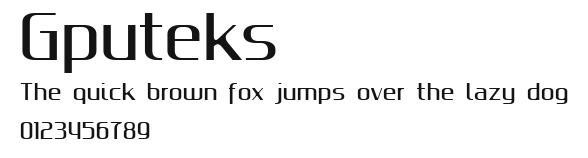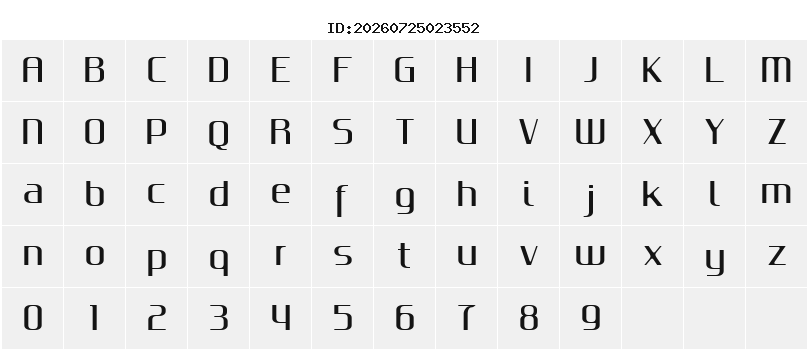
Gputeks Preview
• Font Name: Gputeks
• Font ID: FontForge : Gputeks Bold : 31-7-2008
• Full Font Name: Gputeks Bold
• Version: Version 0.9
• PostScript Name: Gputeks-Bold
• Character Count: 777
About Gputeks.ttf
Gputeks.ttf is a modern, elegant sans-serif font designed for ultimate readability and visual harmony. Perfect for branding, headlines, web design, and print materials.